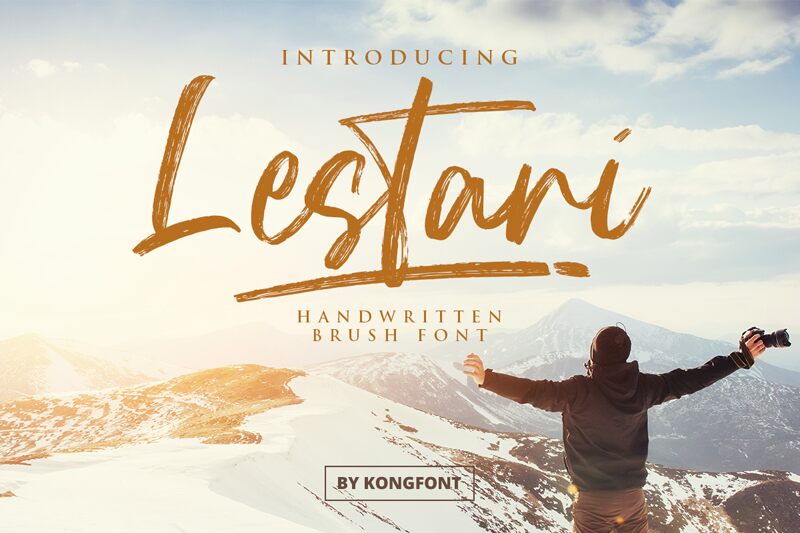
Lestari
Lestari, a captivating brush font designed by Kong Font, adds a touch of elegance and creativity to your projects. With its fluid strokes and unique texture, this font is perfect for fashion branding, wedding invitations, and artistic displays. The semi-bold typeface of Lestari exudes confidence and sophistication, making it suitable for luxury product packaging or magazine headlines. Whether you're designing a logo or creating social media graphics, Lestari will elevate your work with its visual appeal. Let your imagination flow with the versatile beauty of Lestari!